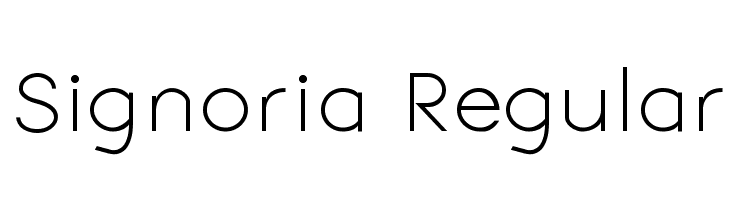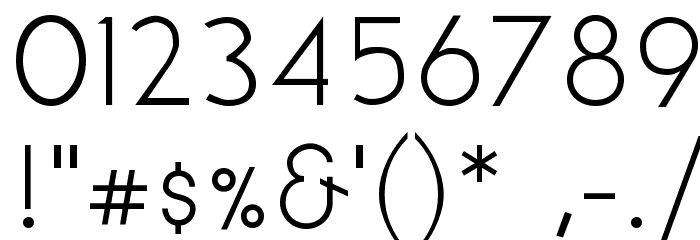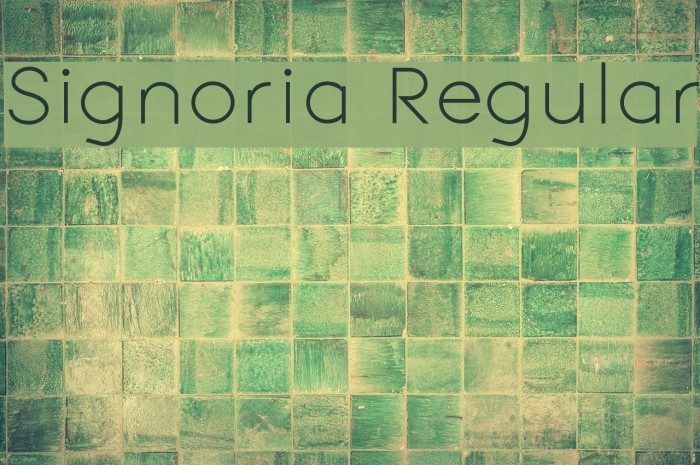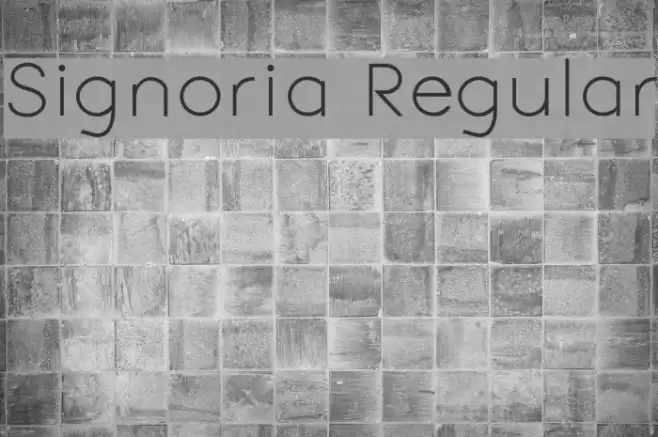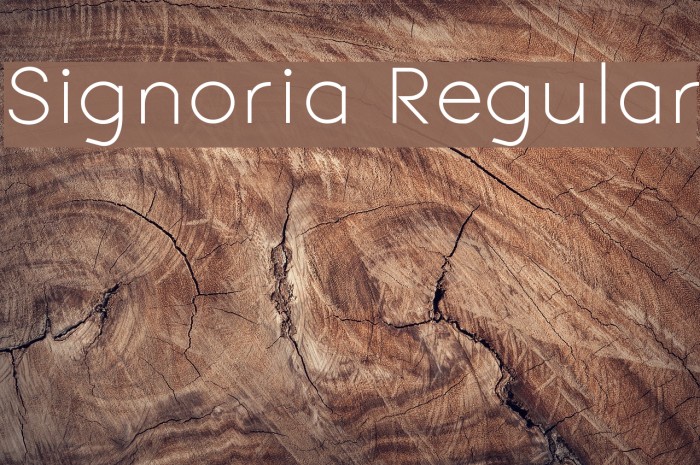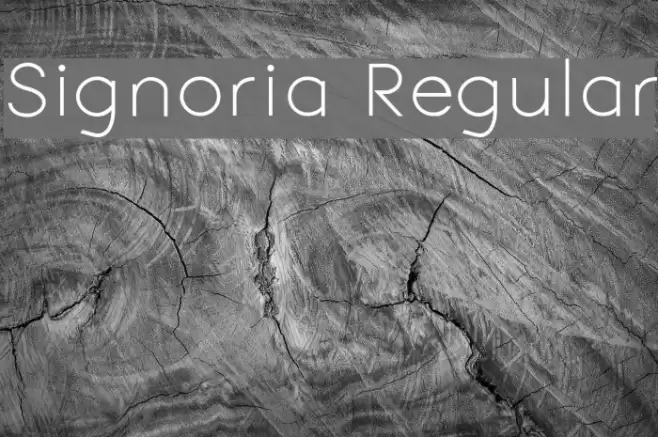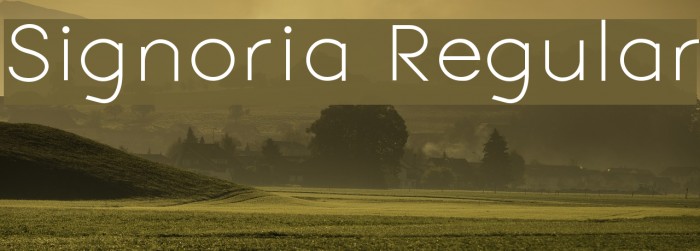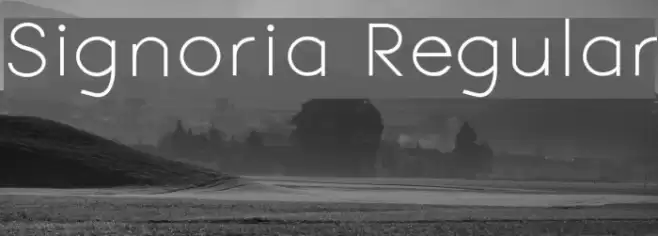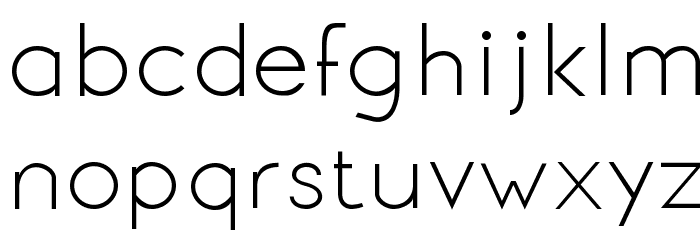
Signoria Regular Font
Signoria Regular Description
This font exhibits a clean and modern sans-serif style, characterized by its geometric shapes and minimalistic design. The letters are evenly spaced with a consistent stroke width, providing a harmonious and balanced appearance. The uppercase letters are bold and assertive, while the lowercase letters maintain a friendly and approachable look. The numerals are clear and legible, making them suitable for various applications. Special characters are well-integrated, maintaining the overall aesthetic of the font. This typeface is versatile, offering a sleek and contemporary feel that is ideal for both digital and print media.
| Use Case | Headlines, Body text, Logos |
| Proposed Projects | Ideal for branding, web design, advertising, and editorial layouts. |